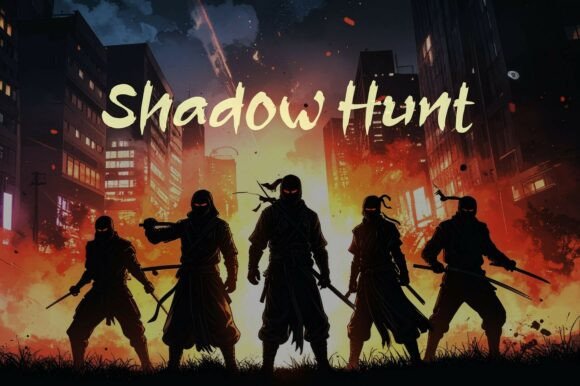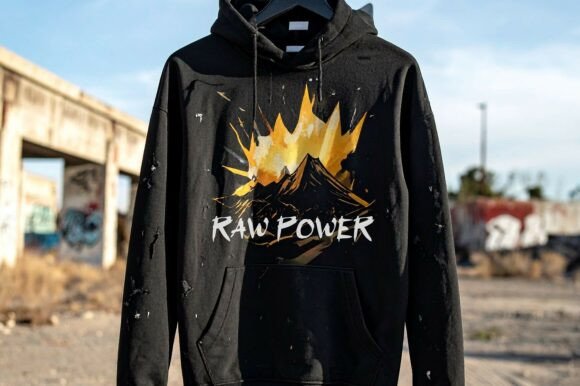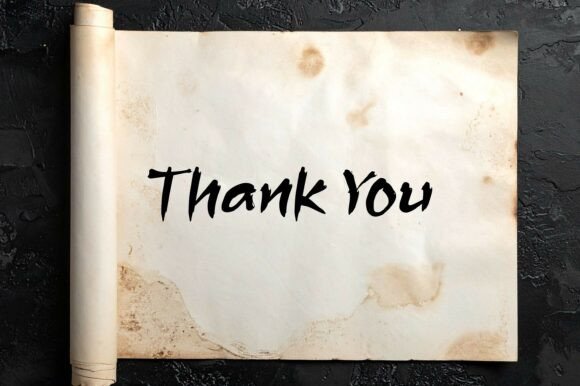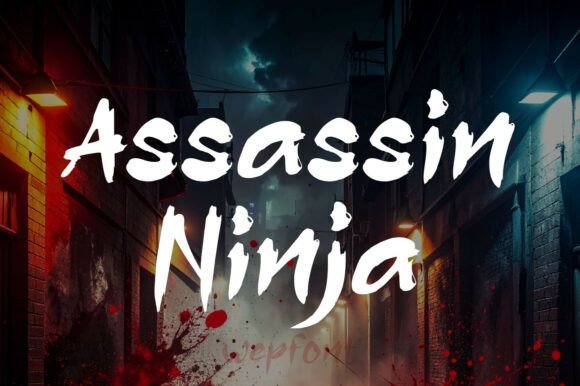
The Ultimate Design Game-Changer: Assassin Ninja Font
I’ll never forget the design project that pushed me to the edge – a high-energy campaign for a martial arts event that demanded a font as fierce as the fighters. After hours of scouring the internet, I stumbled upon the Assassin Ninja font, and it was love at first sight! 💥 Its raw energy, swift movement, and intense action embodied the spirit of the event. Today, I’m excited to share my experience with you, and explore what makes this font a must-have for designers, crafters, and creative hobbyists.
Unleashing the Power of Assassin Ninja
The Assassin Ninja font is a highly dynamic and expressive brush-style display font that exudes an aggressive, hand-painted aesthetic. Its uneven baselines, varied stroke weights, and sharp, impactful textures simulate ink or paint splashes, giving it an authentic, almost visceral feel.
• ✨ Comprehensive character set: Uppercase and lowercase characters, numerals, and essential punctuation, all designed to maintain its distinct, action-oriented style.
• ✅ Bold and irregular form: Ensures excellent visual impact, making it ideal for commanding attention in high-energy contexts.
• 🔥 Subtle drips and imperfections: Add to its edgy, urban, and high-stakes character, making it perfect for designs that require a bold statement.
• ✨ The font’s unique, hand-painted aesthetic sets it apart from other display fonts.
• ✅ The bold and irregular form makes it perfect for headlines, titles, and attention-grabbing designs.
• 🔥 The subtle drips and imperfections add a level of authenticity to the font.
• ⚠️ Legibility at small sizes: The font’s bold and irregular form can make it challenging to read at small sizes.
• 🤔 Limited use cases: The font’s aggressive aesthetic may not be suitable for all design projects, such as luxury brands or elegant designs.
The Assassin Ninja font was inspired by the raw energy and intensity of martial arts. Its designer, a typography enthusiast, aimed to capture the spirit of swift movement and fierce action in a font that would make a bold statement.
Q: What is the Assassin Ninja font best used for?
A: The Assassin Ninja font is best used for high-energy designs, such as martial arts event posters, bold headlines, and attention-grabbing titles.
Q: Is the Assassin Ninja font suitable for body text?
A: No, the Assassin Ninja font is not suitable for body text due to its bold and irregular form, which can make it challenging to read at small sizes.
Q: Is the Assassin Ninja font available in different weights or styles?
A: The Assassin Ninja font comes in a single weight, but its bold and irregular form makes it versatile enough to be used in various design contexts.